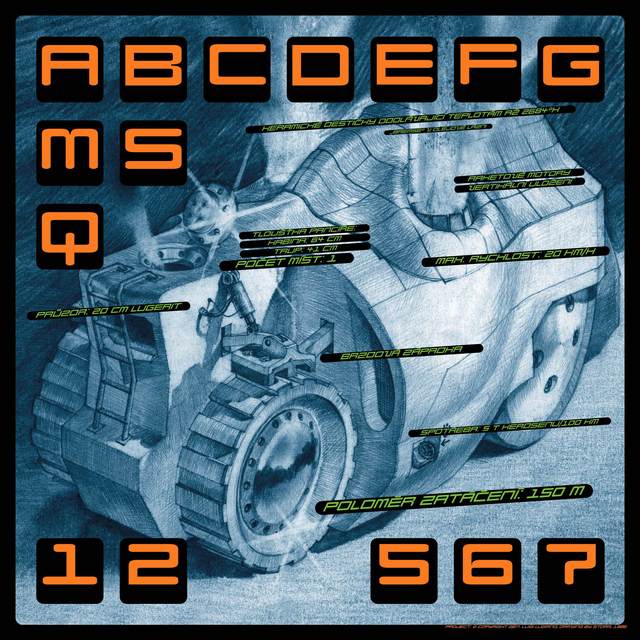
Modell Font
Modell Font is perfect for fashion modeling agency branding, haute couture runway materials, modeling portfolio presentations, fashion photography studios, beauty pageant communications, fashion week event promotions, model casting announcements, and luxury fashion magazine layouts where elegance and professional modeling are emphasized.
What makes Modell Font so exciting is its sophisticated ability to capture the glamour and precision of professional modeling through sleek letterforms that embody the poise and elegance of runway fashion while maintaining exceptional readability for fashion industry communications. The refined character design reflects the professionalism and aesthetic excellence that defines successful modeling careers and high-fashion environments.
The Modell Font family includes thin, light, regular, medium, bold, and ultra-light weights, with fashion-inspired variants and runway ornamental elements that provide comprehensive tools for creating authentic modeling industry branding and fashion design systems.
This elegant typeface represents the pinnacle of fashion typography, combining modeling tradition with contemporary fashion industry requirements. The Modell Font Free Download gives fashion organizations access to typography that communicates professional modeling and haute couture sophistication.
The font's streamlined character architecture and proportional elegance create immediate associations with runway modeling and fashion photography excellence. Each letterform has been designed to convey the grace and professionalism that defines successful modeling careers and luxury fashion presentations.
Modell Font excels in creating striking fashion communications that inspire style confidence and celebrate modeling artistry. The typeface's sophisticated character makes it ideal for modeling agencies, fashion photographers, and luxury fashion brands targeting audiences who appreciate professional modeling and haute couture elegance.
From Milan Fashion Week to New York modeling agencies, this font brings fashion credibility that appeals to industry professionals and fashion enthusiasts seeking authentic modeling experiences and runway sophistication. The versatile design maintains its elegant character across both traditional fashion materials and modern digital fashion platforms.